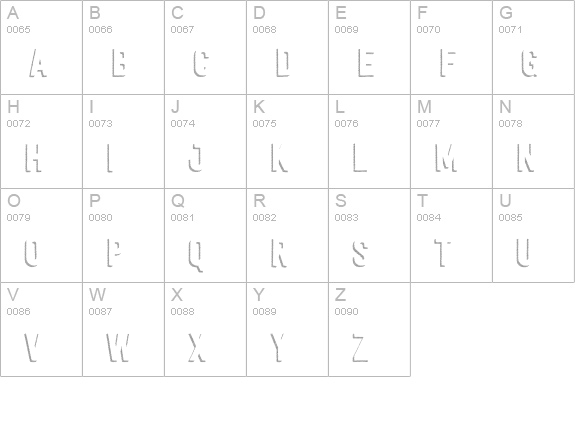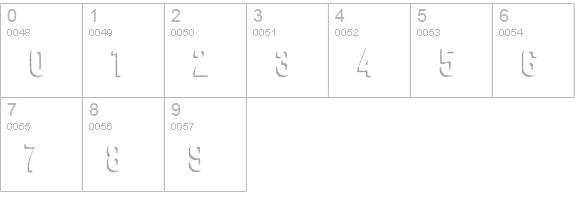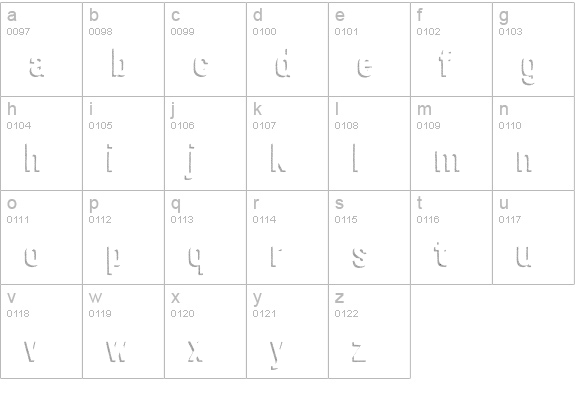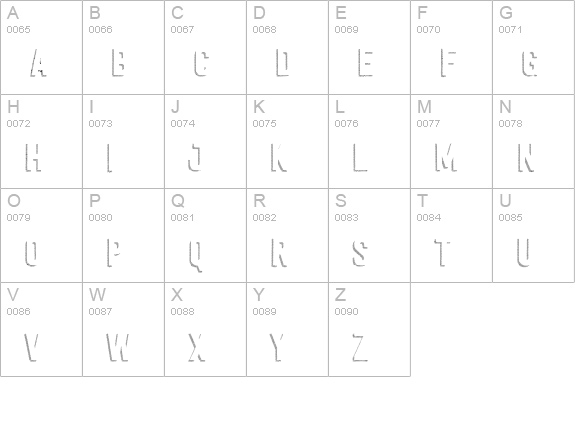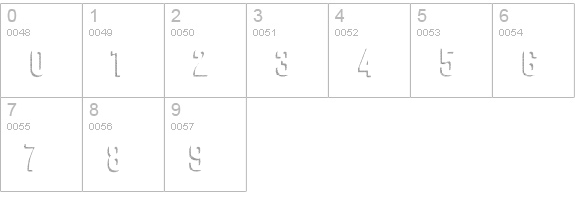
Festivo LC L Lines Font Details
Festivo LC L Lines font is a stunning display typeface that exudes elegance and sophistication. With its intricate lines and delicate curves, this font is perfect for adding a touch of luxury to your design projects. The tall, narrow letterforms give off a modern and sleek vibe, making it ideal for fashion, beauty, and lifestyle brands. The Festivo LC L Lines font is not only visually striking but also versatile, suitable for a wide range of design applications including logos, headlines, invitations, and more. Its unique design will make your text stand out and leave a lasting impression on your audience. Best of all, Festivo LC L Lines font is available for free download at FontsMarket.com. Now you can elevate your designs with this stylish and sophisticated typeface without breaking the bank. Don't miss out on the opportunity to add Festivo LC L Lines font to your font library today!